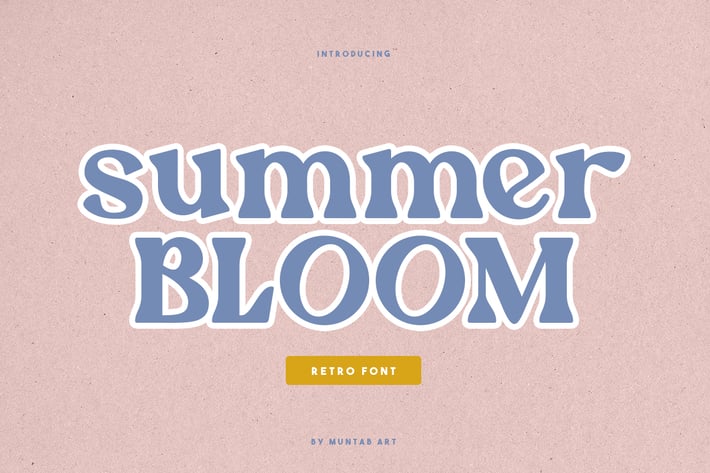
Summer Bloom | Retro font
Summer Bloom fonts include uppercase letters, lowercase letters, numerals, a large range of punctuation. Serif font with retro style. Created for poster, web design, branding, illustrations, badges, and some other works.